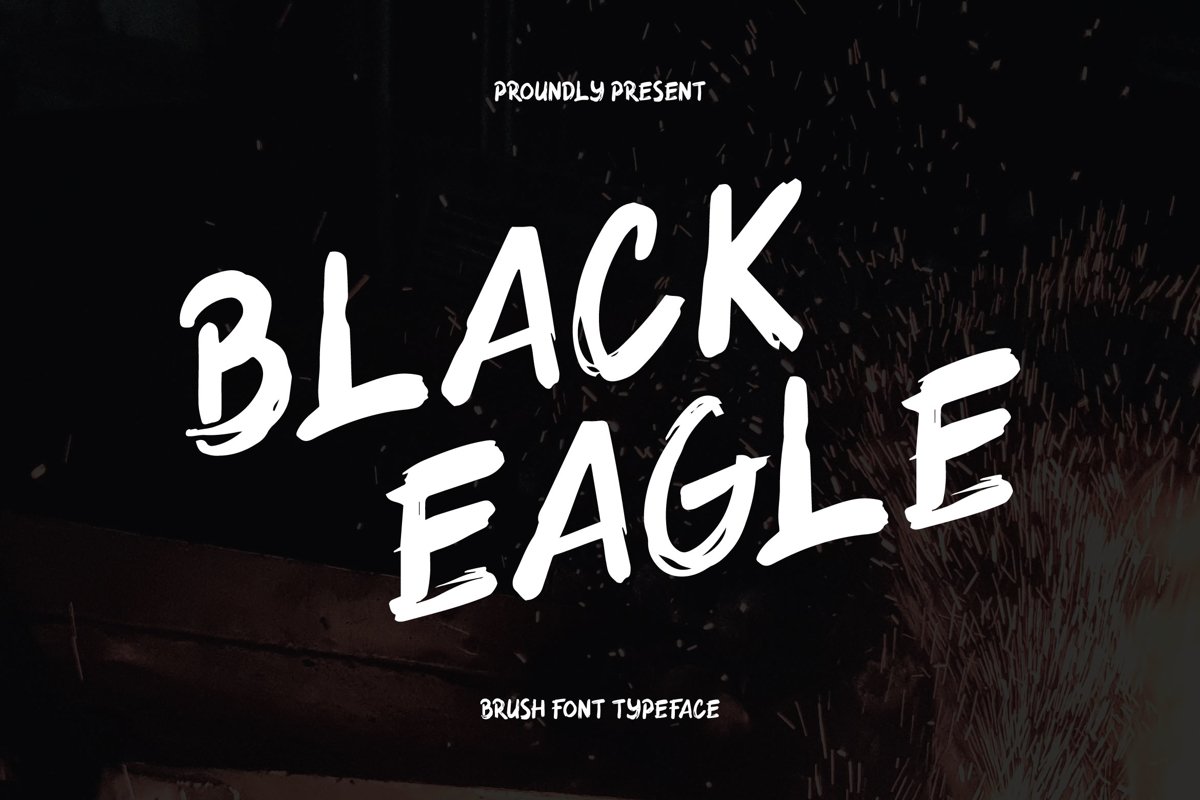
Black Eagle is an old school brush texture typefaces, it is all caps. That makes this font looks natural and ideal for any awesome project. It matches applies in some designs such as the logotype, poster, packaging, branding, quotes, badge and more custom design. The features uppercase, lowercase, numeral, punctuation & symbol.